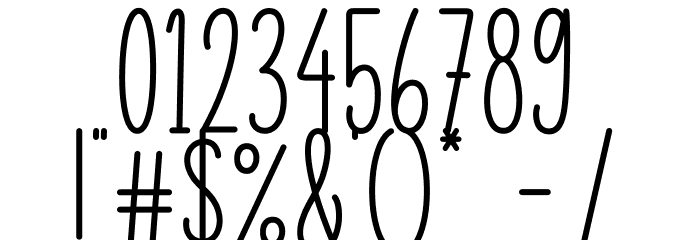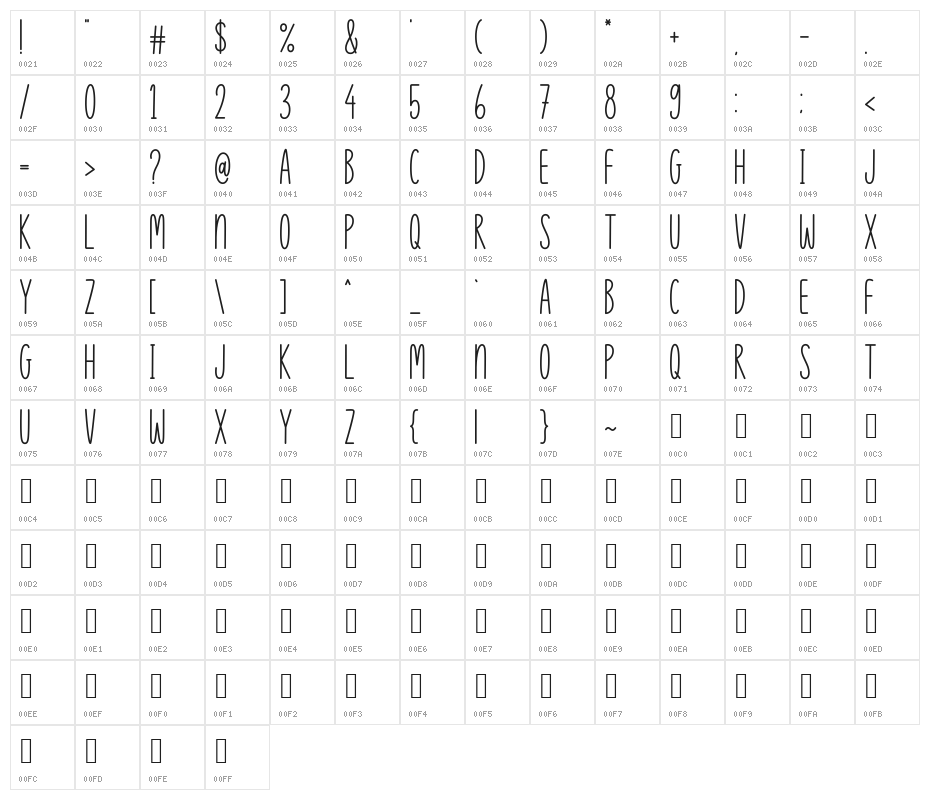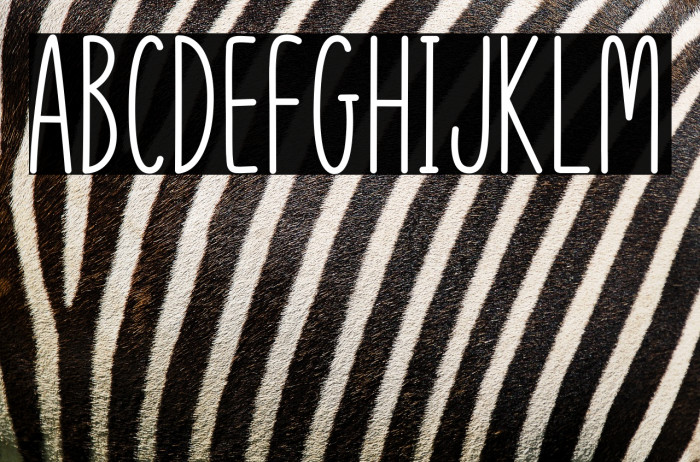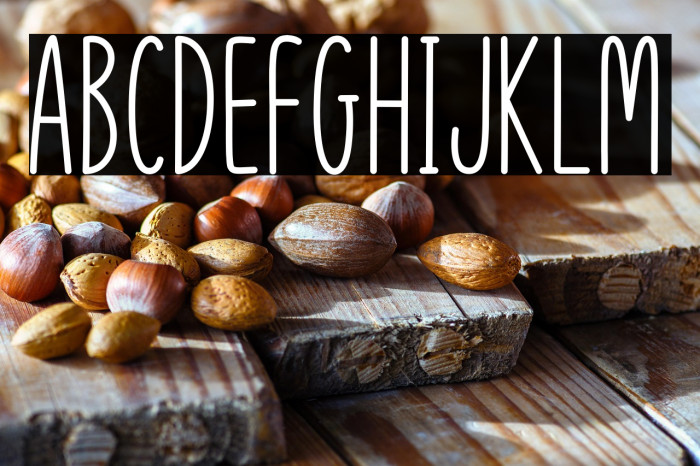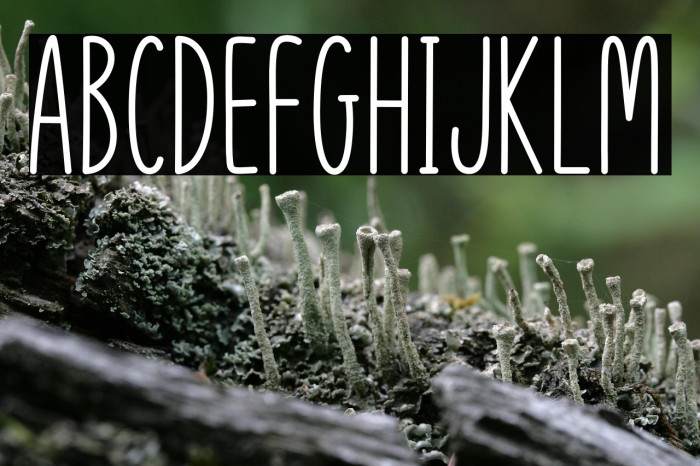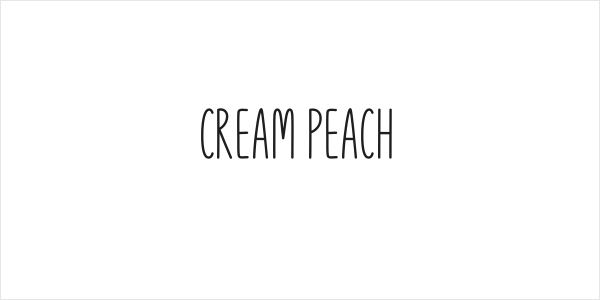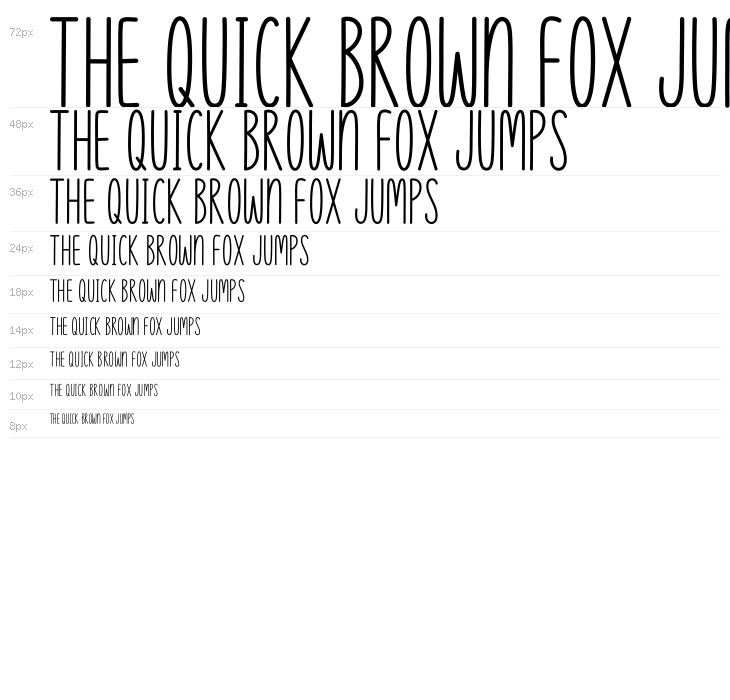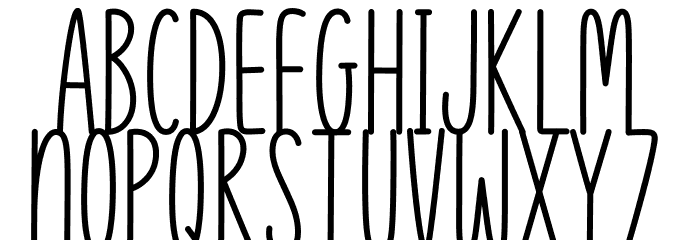
Cream Peach Font
Cream Peach Description
This font features a playful and whimsical design, characterized by tall, narrow letters with a hand-drawn feel. The strokes are consistent in width, giving it a monoline appearance, and the characters exhibit a slight irregularity that adds to its charm. The uppercase and lowercase letters maintain a cohesive style, with rounded edges and a slightly elongated form. Numbers and special characters are crafted with the same playful aesthetic, making them blend seamlessly with the alphabet. This font's unique style makes it stand out, offering a friendly and approachable vibe.
| Overall Style | Whimsical |
| Proposed Projects | Ideal for children's books, greeting cards, playful branding, and creative posters. |